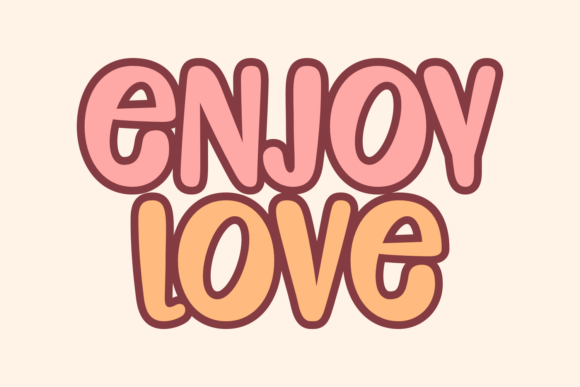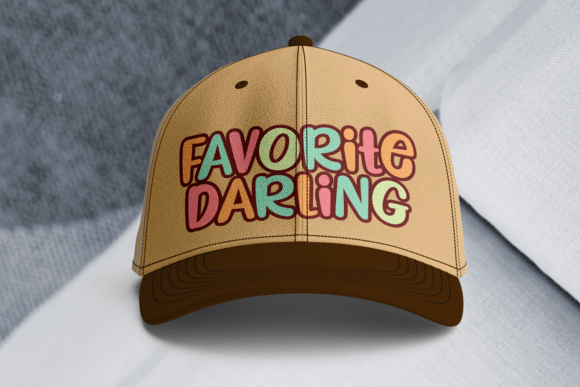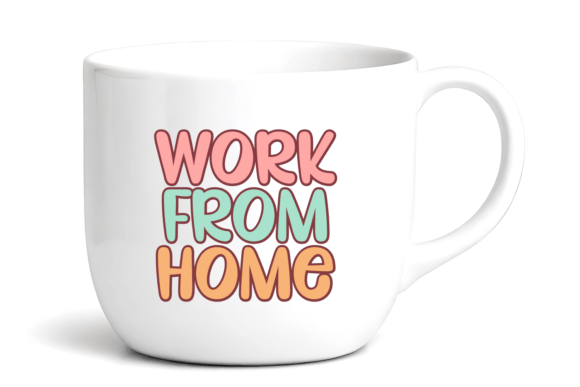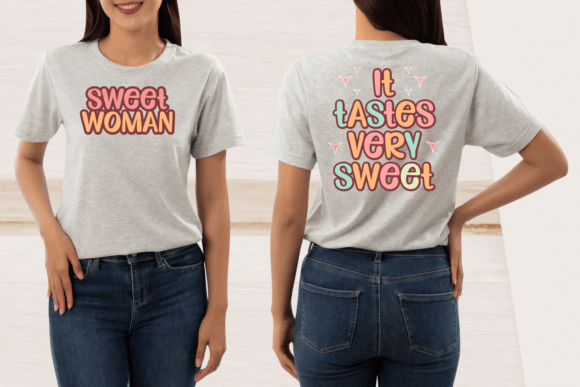
Introduction to Dear Wishes Font
Leap into the heart of a retro age, filled with the vibrant echoes of the vivacious 70s and the effervescent 80s, via the uniquely charming Dear Wishes Font.
This captivating typeface effortlessly combines subtle elegance with a captivating, playful spirit, infusing your projects with a one-of-a-kind appeal Dear Wishes Font brings to life a creamy yet springy stylistic flair, effortlessly blending finesse and youthful eccentricity.
Key Features of Dear Wishes Font
Why Choose Dear Wishes Font?
Dear Wishes Font offers exceptional quality and versatility, making it a valuable addition to your design toolkit. Whether you’re creating for personal projects or commercial use, Dear Wishes Font delivers professional results.